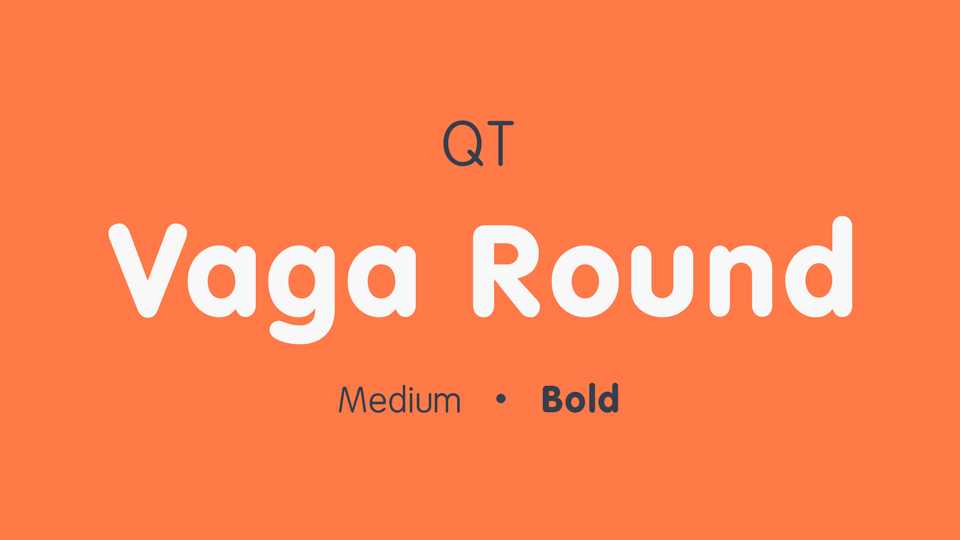
Download Vaga Round typeface, a rounded geometric sans serif font family in two weights, based on the VAG Rounded, originally commissioned in 1979 as a new corporate typeface for Volkswagen AG.